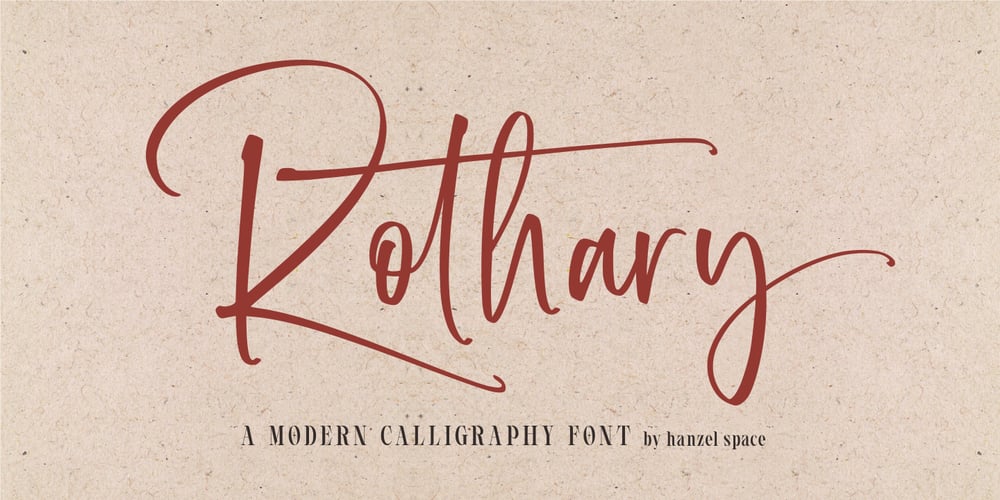
Rothary Font Family was designed by Hanief Farandi and published by Hanzel Space. Rothary contains 1 styles and family package options. Rothary includes full set of uppercase and lowercase letters, multilingual symbols, numerals, punctuation, alternates, swash and ligatures. The font has Modern Elegant Style this is perfect for branding, logos, invitation, master-heads and more.In order to use the beautiful ligatures, you need a program that supports OpenType features such as Adobe Illustrator CS, Adobe Photoshop CC, Adobe Indesign and Corel Draw.